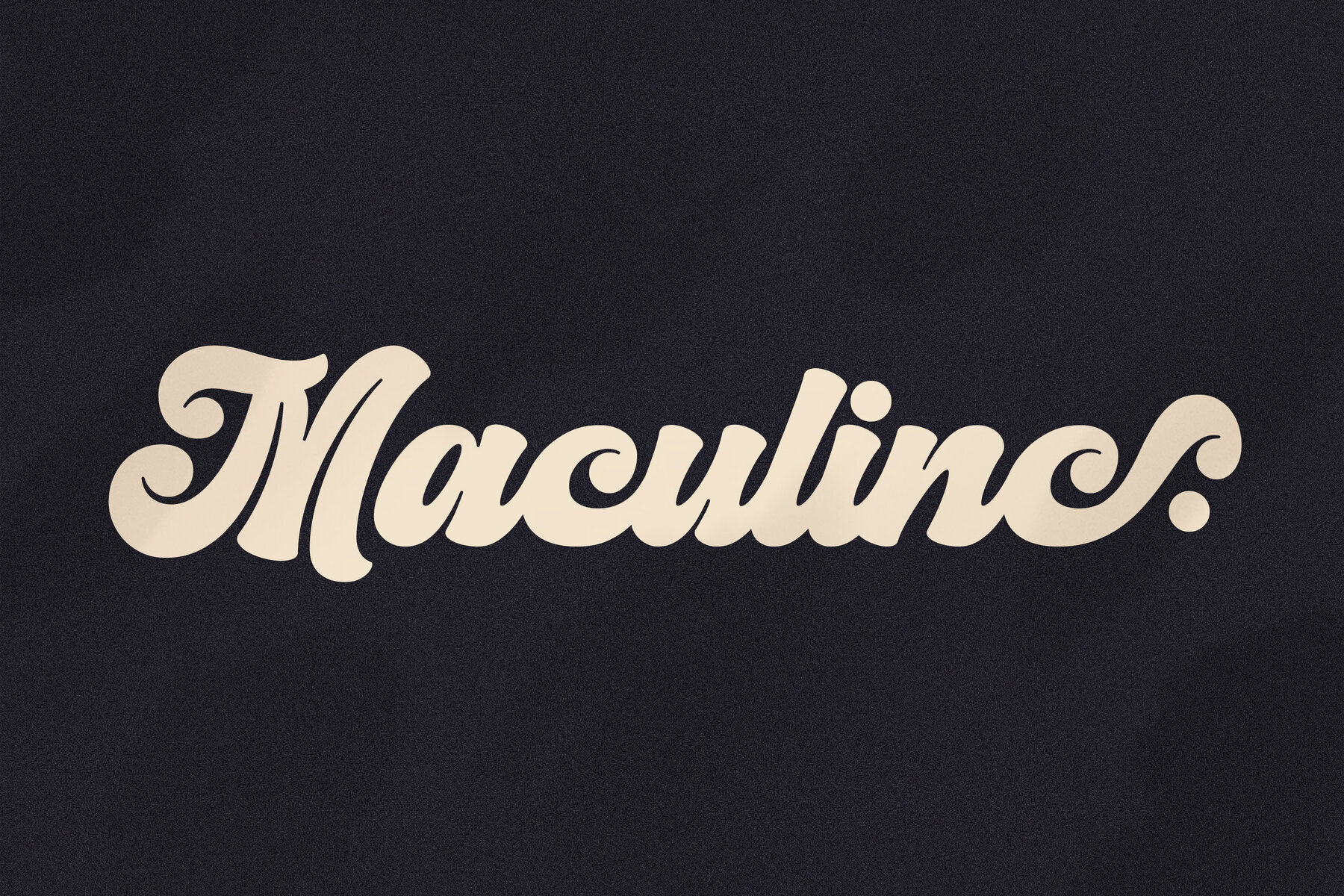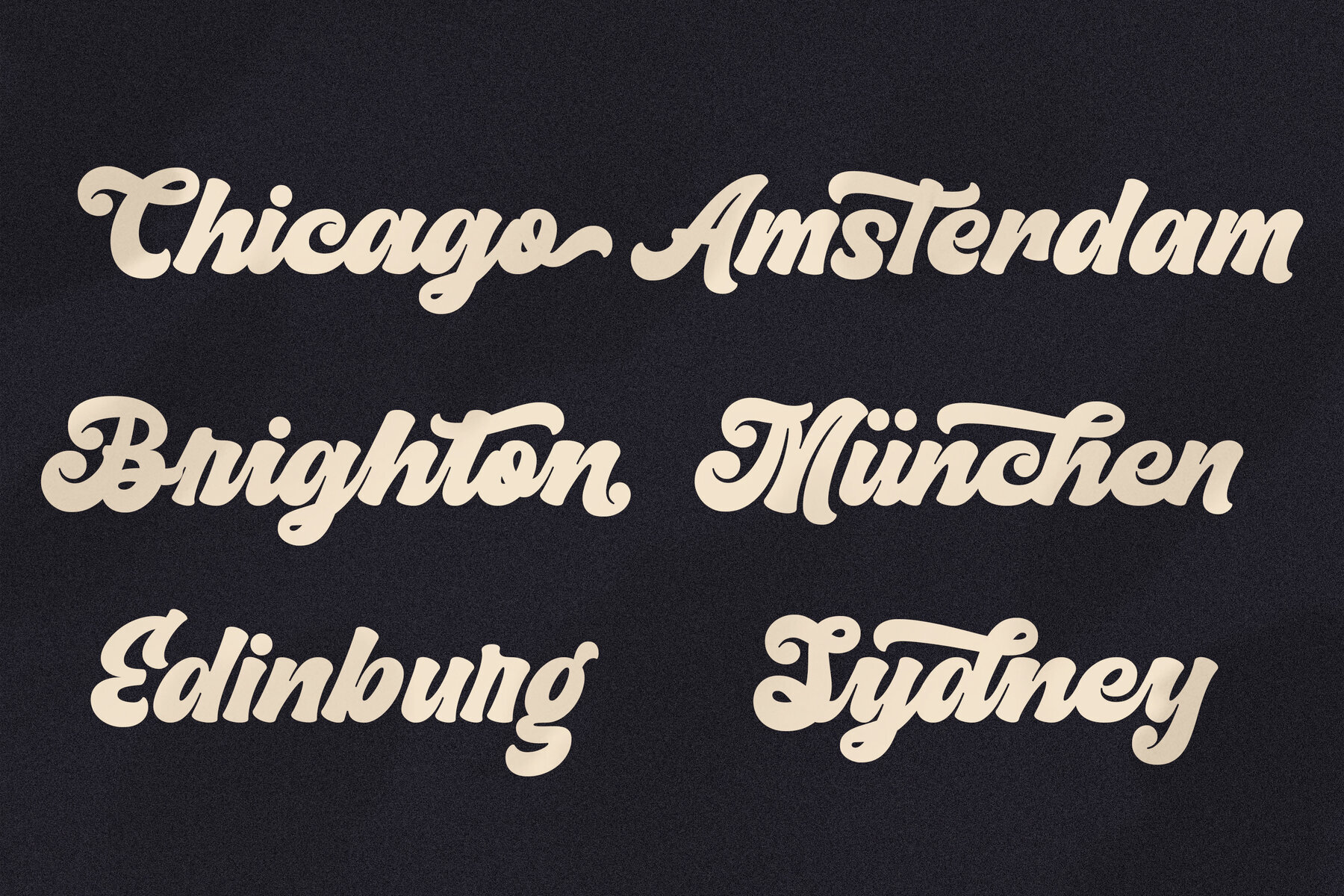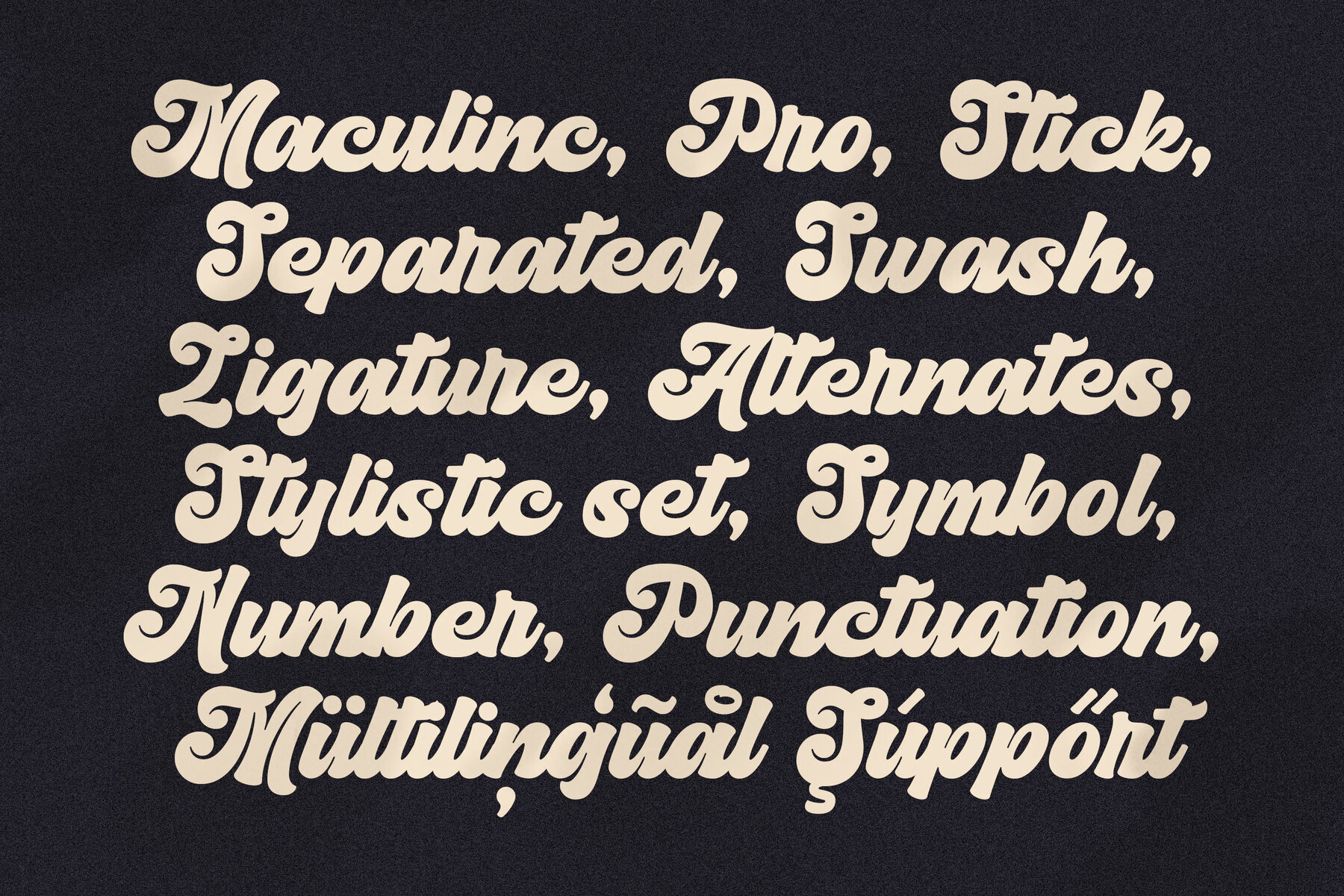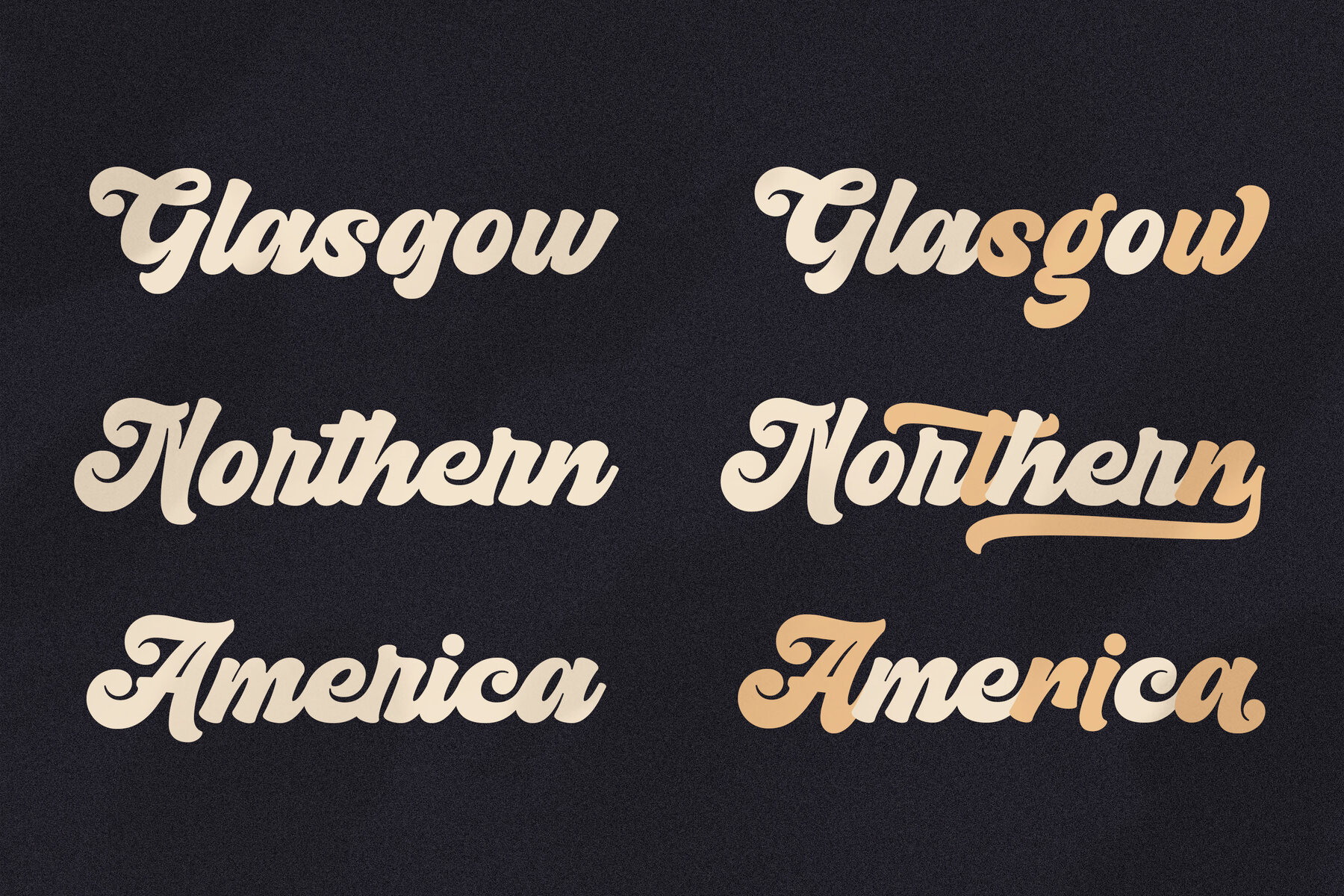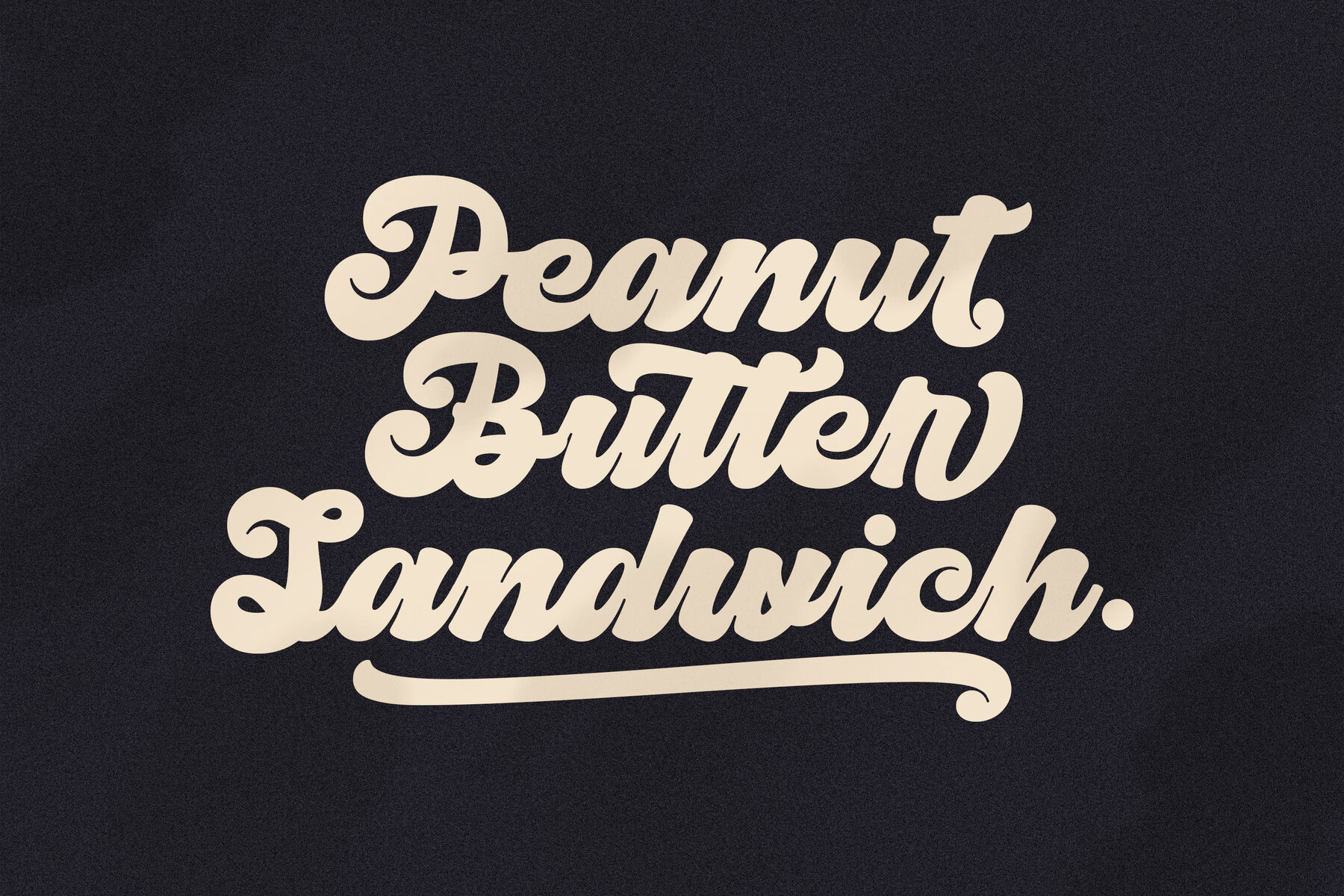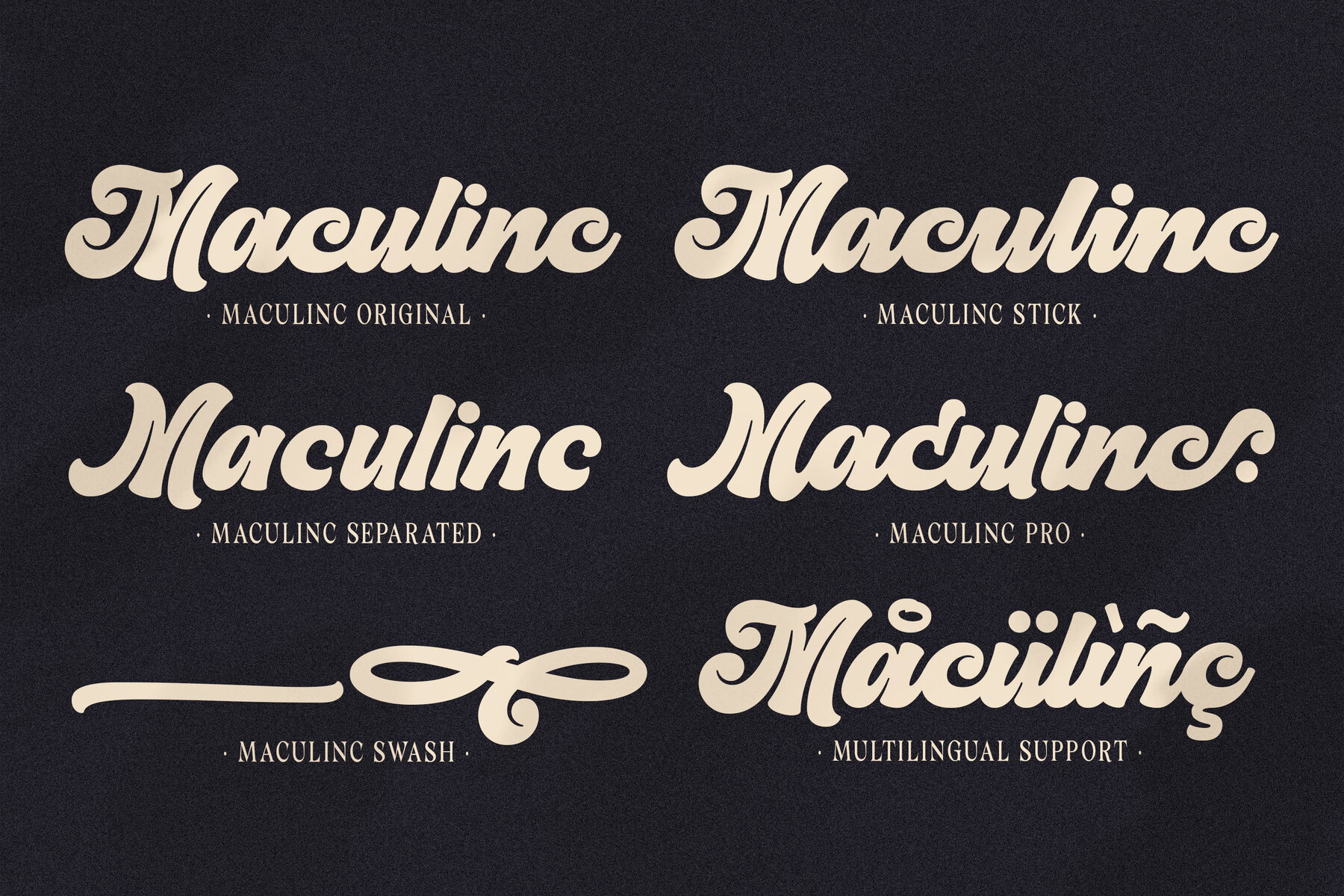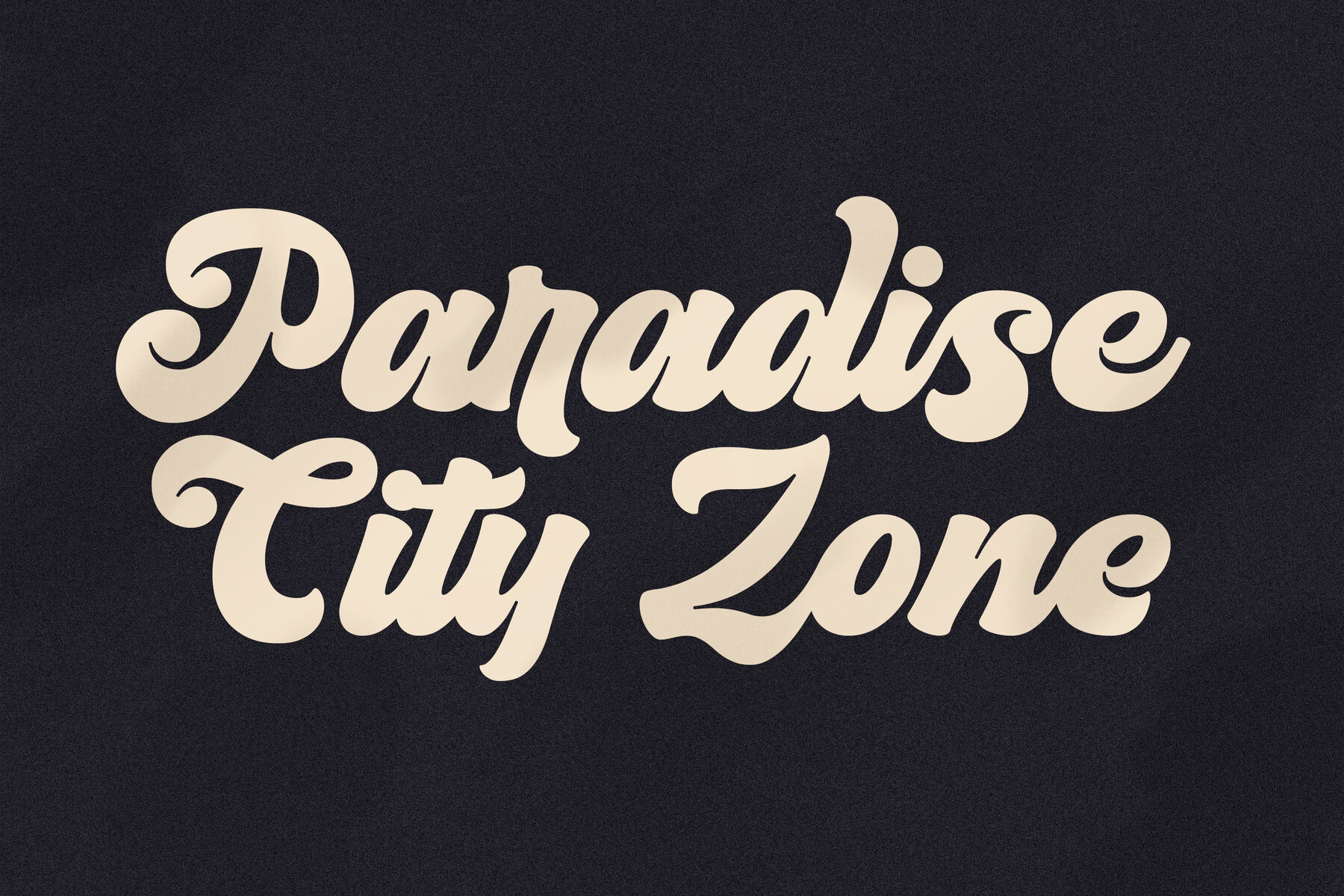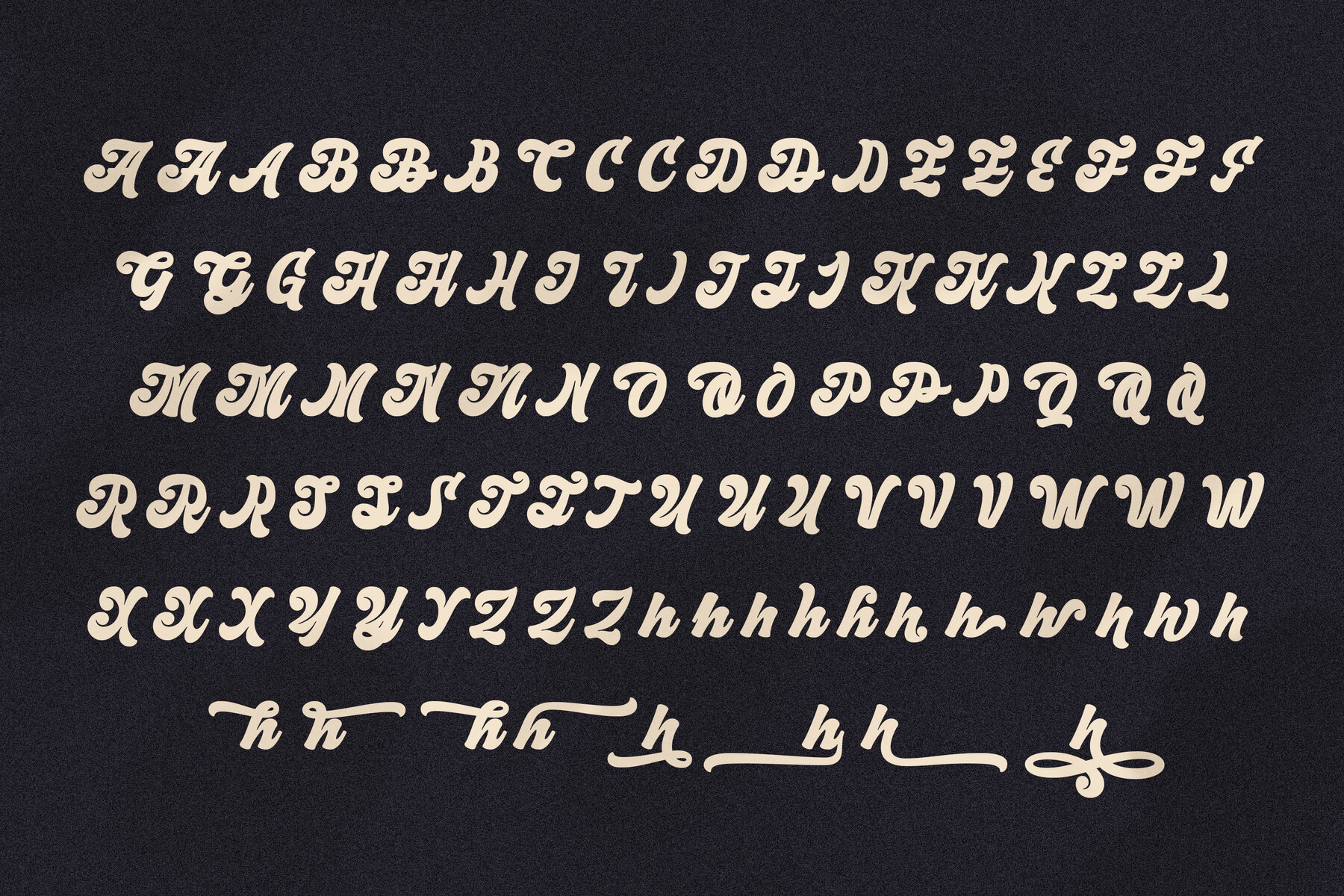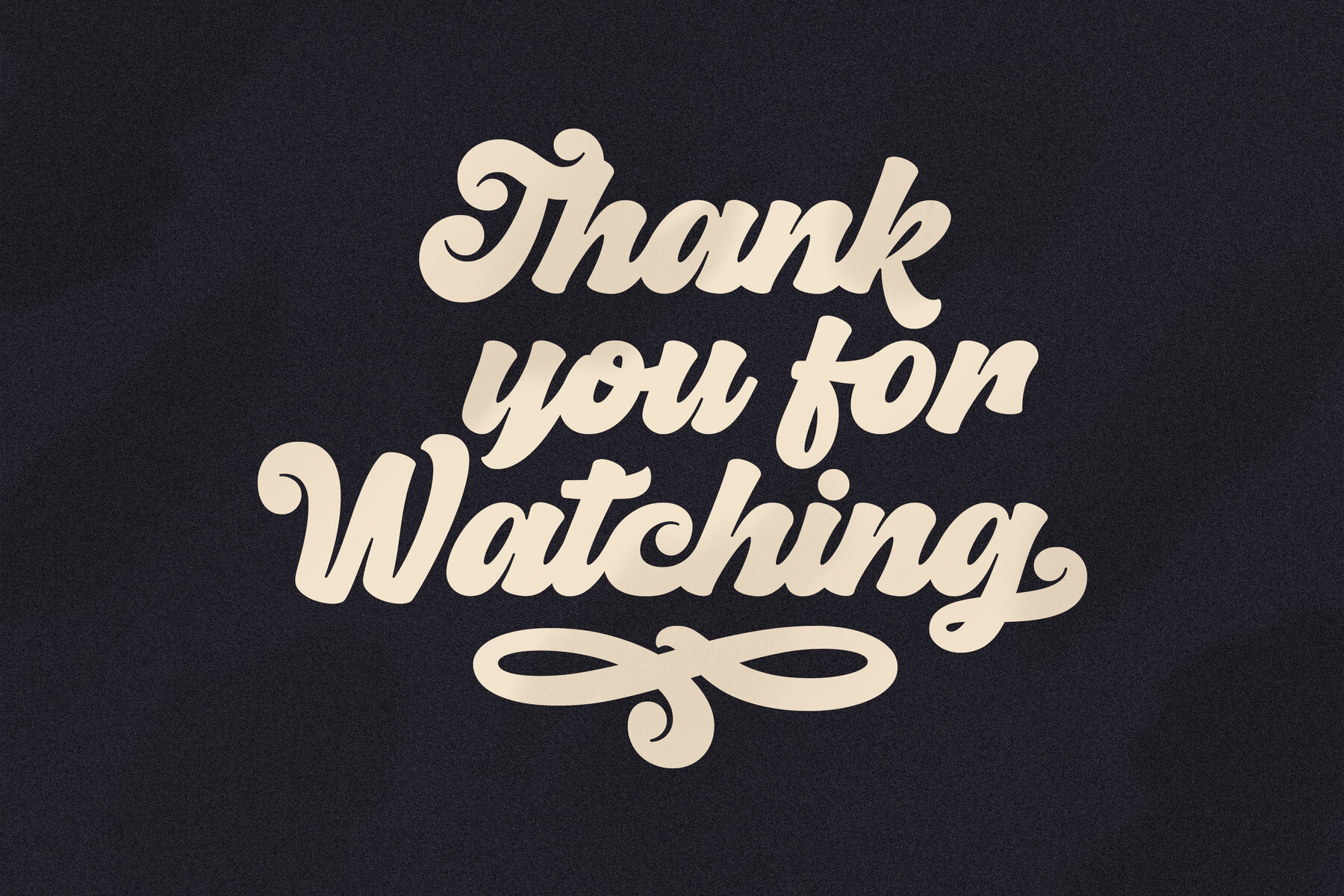
Maculinc Font
Introducing a bold and classic script font designed with creativity in mind. Originally crafted for a unique logo design, this font has evolved into a complete typeface collection divided into five distinct styles: Original, Stick, Separated, Pro, and Swash. Each variant offers ligatures and alternatives and includes numbers, punctuation, and multilingual support—except for the Swash style, which purely focuses on decorative swashes. The Pro style is particularly noteworthy as it encompasses all letters and numerous additional alternatives from each typeface, lending remarkable versatility.
With a blend of retro charm and modern flair, this script font is perfect for a wide array of projects. Whether you're designing business cards, crafting t-shirt graphics, creating logos, or developing brand identities, this font adapts seamlessly to your needs. It's ideal for crafting both sophisticated, complex layouts and bold, daring retro-inspired designs. Explore its full potential and let your creativity flourish by using the typeface tester to experiment with your text.